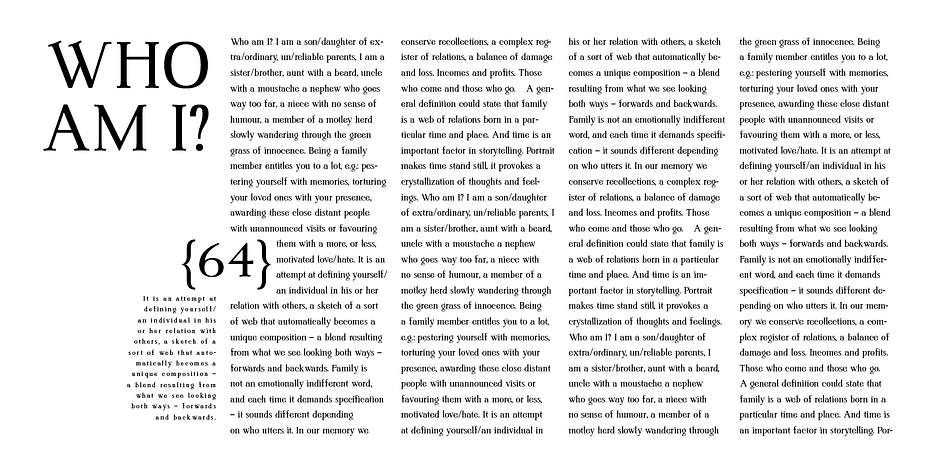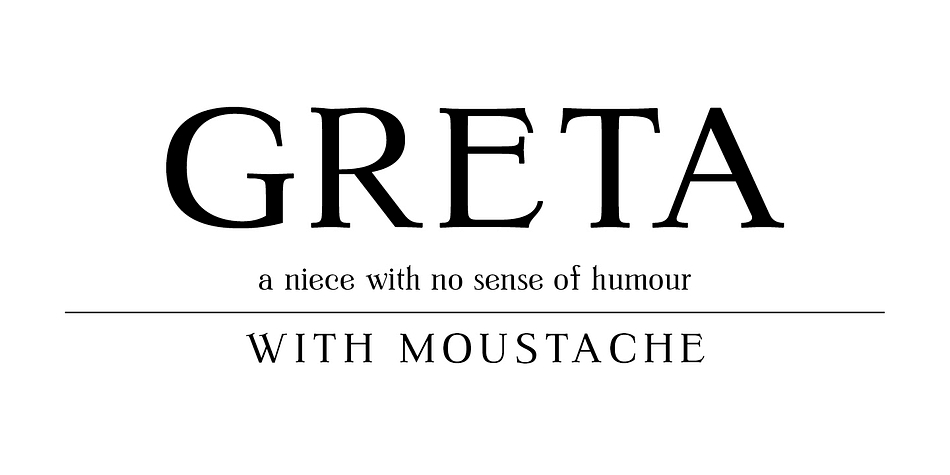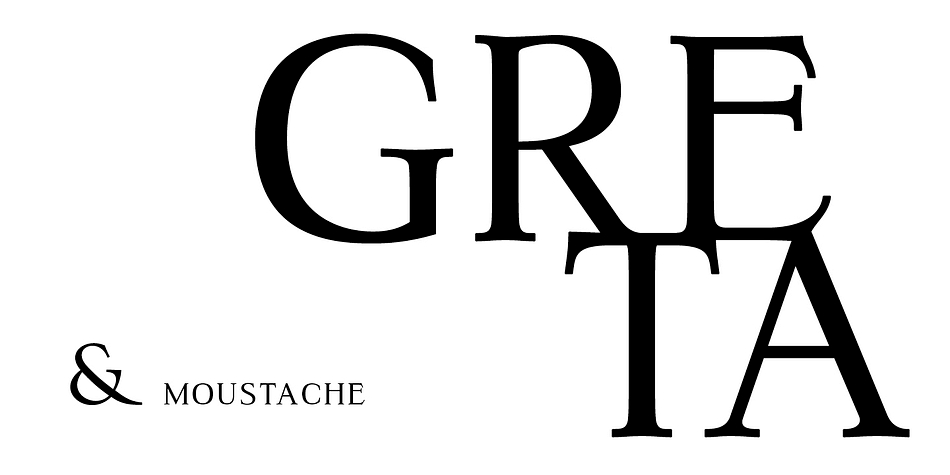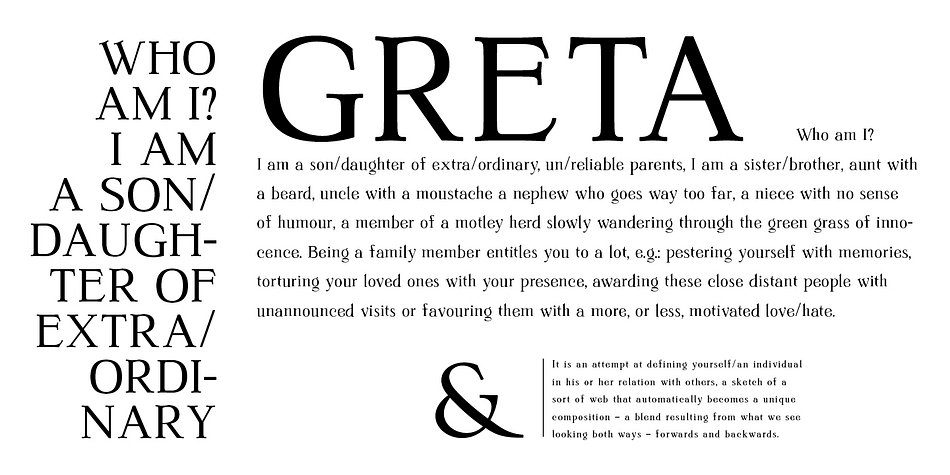
Greta is a serif font published by Typoforge Studio.
To design a font Greta I was inspired by a typography taken from the prayer book Benedict XV from 1888. Font Greta is designed in two versions - lower and uppercase characters.